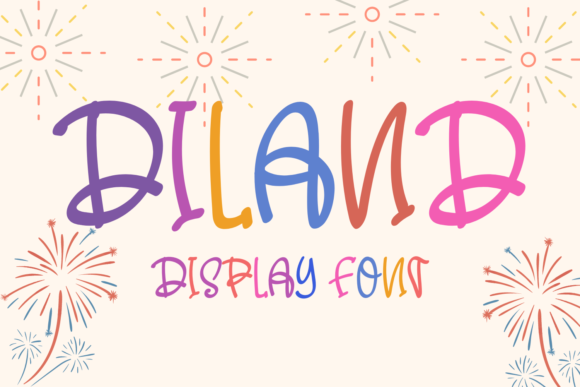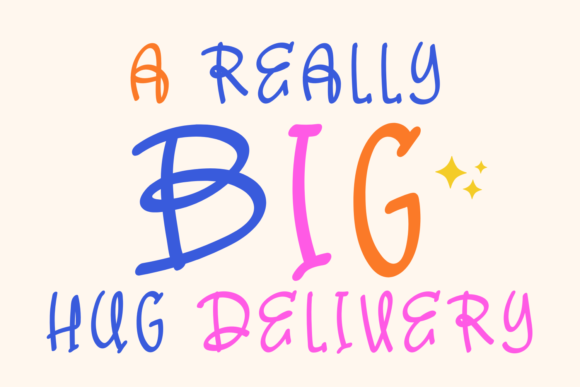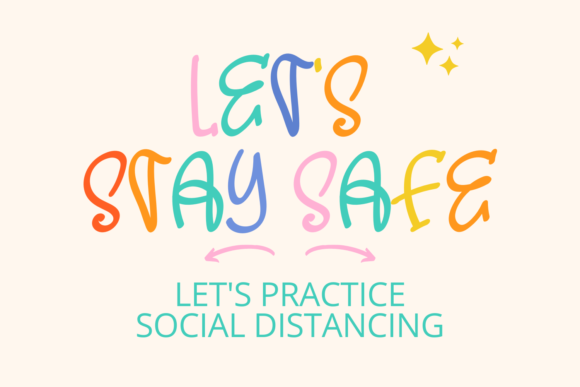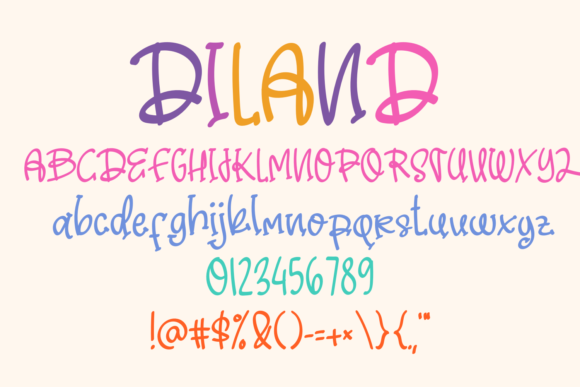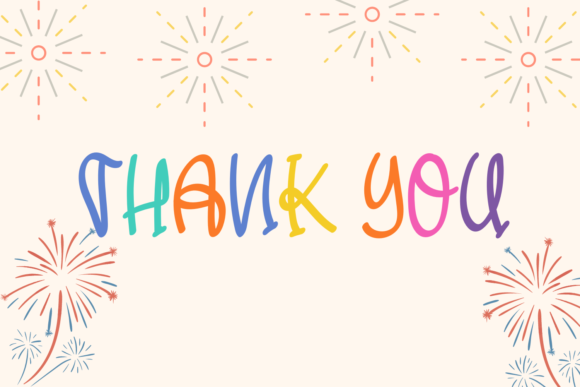
HomePersonal Use FreeDiland Personal Use Free Diland FacebookTwitterPinterestWhatsApp 1 of 5 About Diland Font Diland is a cute and whimsical display font. This font is perfect for children themed designs, especially when combined with bright colors. DOWNLOAD NOW People also explored Alpha Lady Sayyidus Syuhur Font Master Gerky Font Doedel Handmade Mandala Font Hormath Font Broelly Font Gracelyn Hand Font Kisetsu Font 127 0 TagsCendiland Font Previous articleTurpentineNext articleFribash LEAVE A REPLY Cancel reply Comment: Please enter your comment! Name:* Please enter your name here Email:* You have entered an incorrect email address! Please enter your email address here Website: Save my name, email, and website in this browser for the next time I comment. Personal Use Free Fillguy Font Personal Use Free Read more about this font Rembank Personal Use Free Read more about this font Elsabetha Personal Use Free Read more about this font Grillin Personal Use Free Read more about this font BLOG Top 7 Google Fonts Alternatives for Faster and Privacy-Friendly Web Design (2025) Top 7 Google Fonts Alternatives for Faster and Privacy-Friendly Web Design (2025) When it comes to web typography, Google Fonts has long been the go-to... To increase your work productivity, choose the most readable fonts. Free vs Paid Fonts: Why Investing in Premium Fonts Is Worth It Best Fonts for T-Shirt Design – Top 2025 Picks